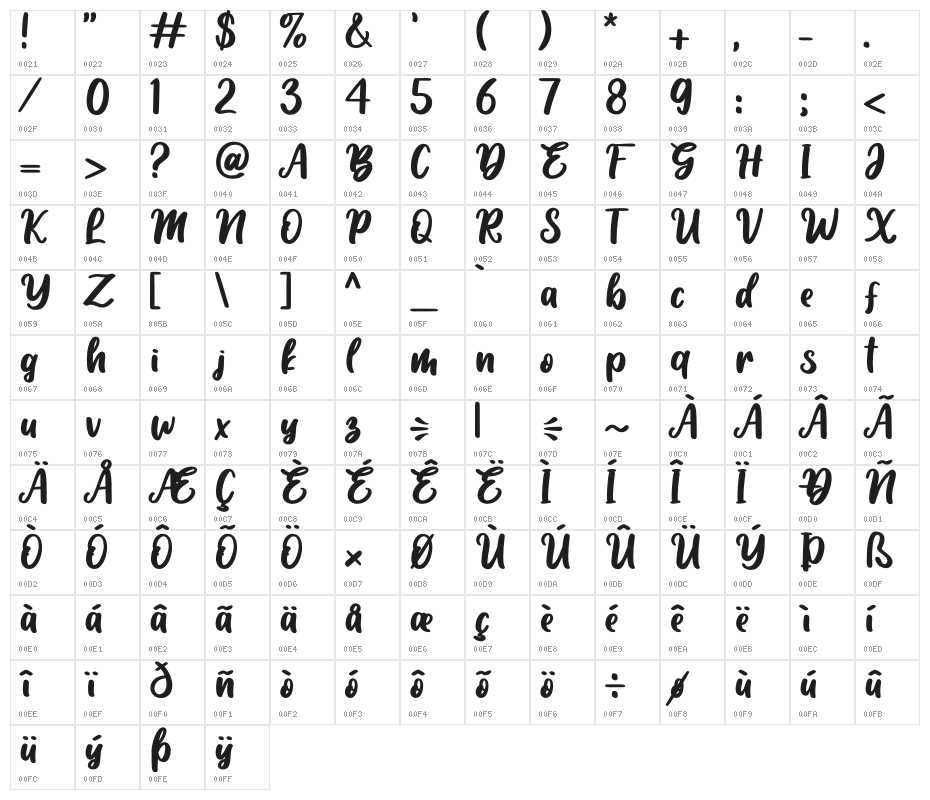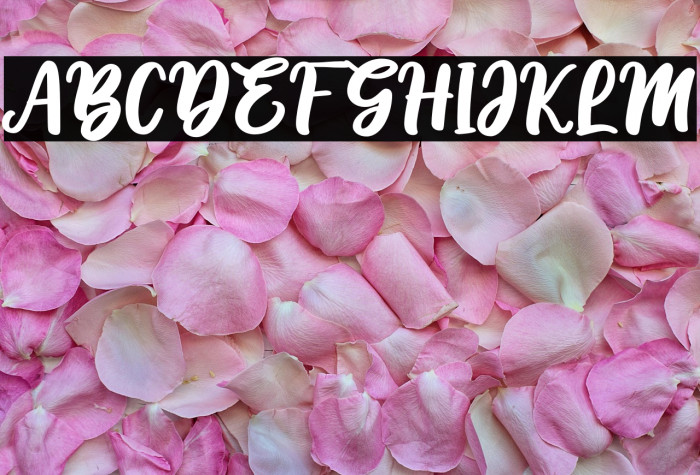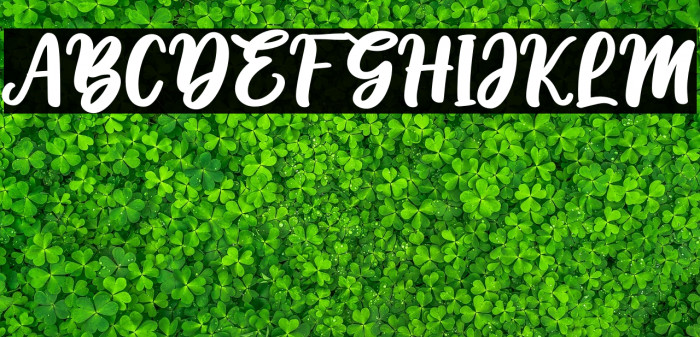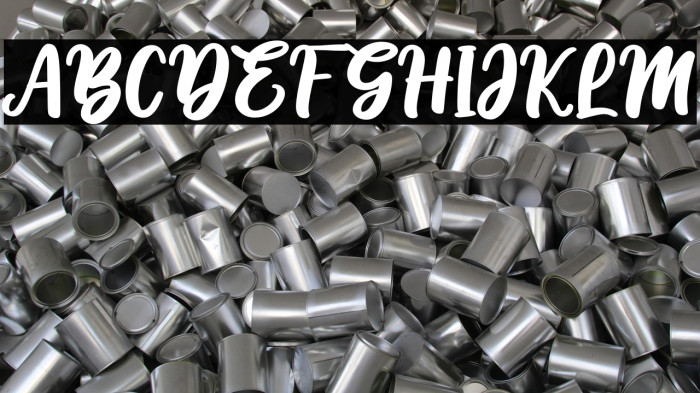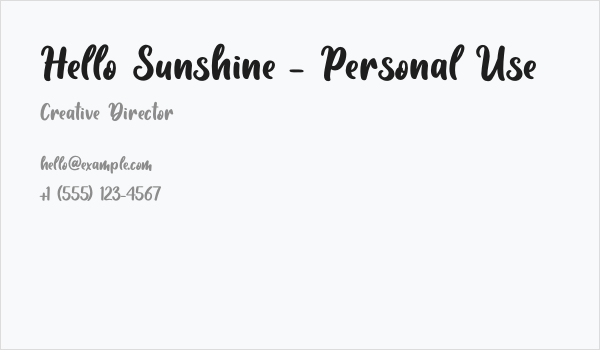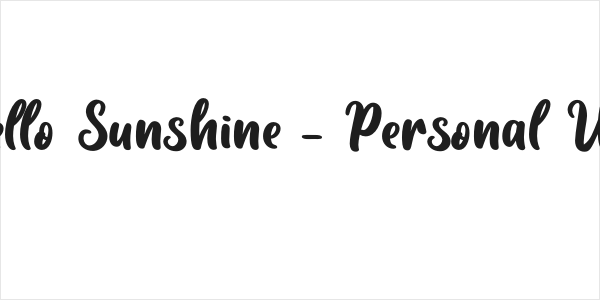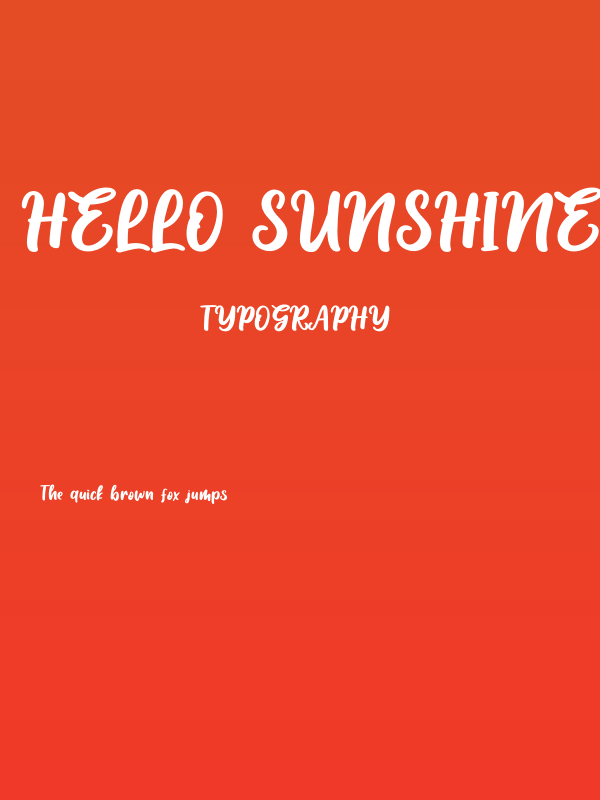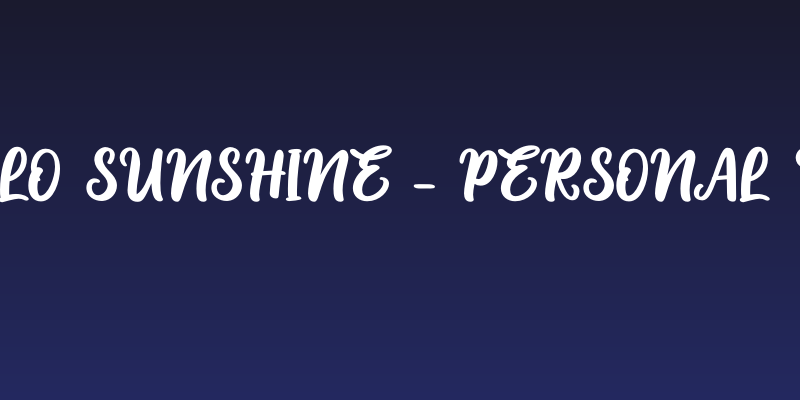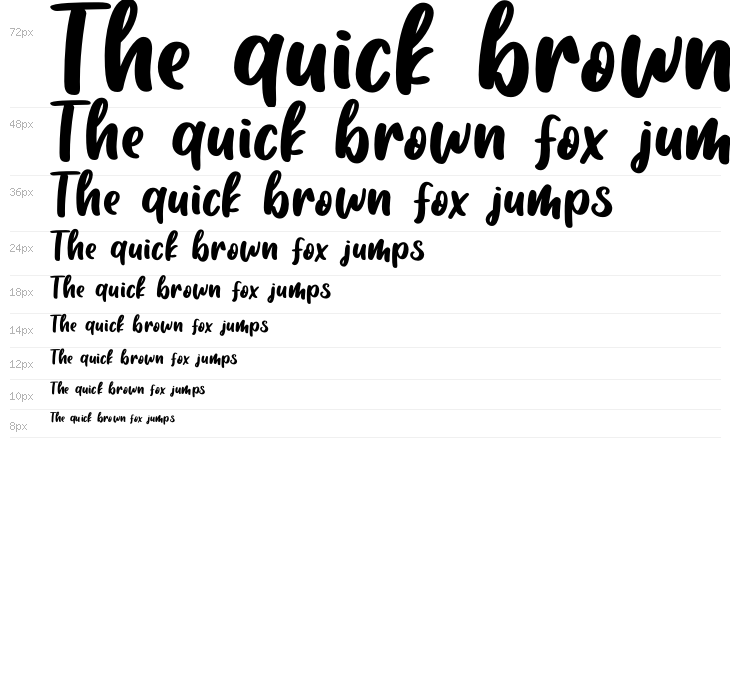
Hello Sunshine - Personal Use Font
| Anwendungsfall | Logos, Headlines, Invitations |
| Vorgeschlagene Projekte | Ideal for greeting cards, invitations, playful branding, and social media graphics. |